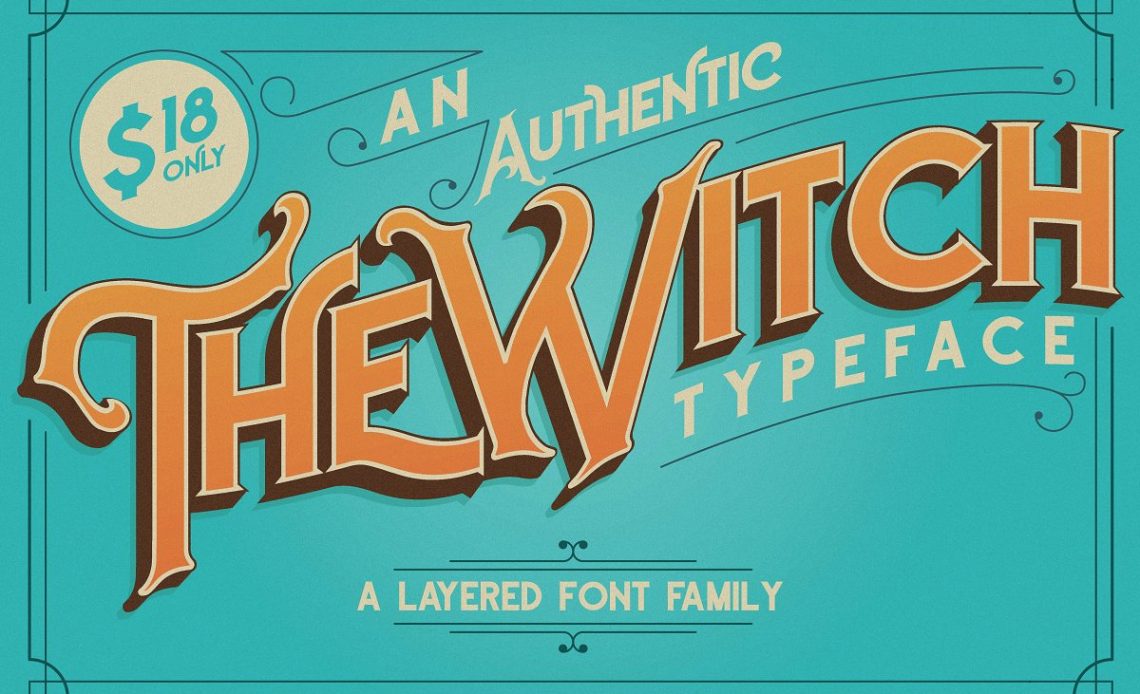
Introducing The Witch Typeface - the ultimate collection of fonts that will transport you back to the enchanting world of the late 1800s. Created by the talented minds at Paper Witch, this font family is a true masterpiece, capturing the essence of vintage charm and nostalgia.
With its four captivating styles - Regular, Outline, Gradient, and 3D Extrude - The Witch Typeface offers a versatile range of options to suit your every design need. Each style exudes its own distinct personality, allowing you to infuse your projects with a touch of magic and allure.
Immerse yourself in a world of wonder as you indulge in the mesmerizing vintage atmosphere that The Witch Typeface effortlessly conjures. Picture yourself strolling through a whimsical circus, relishing in the joy of a vibrant carnival, sipping aromatic coffee in a cozy café, or enjoying a smooth cigarette in the company of friends. This font is designed to encapsulate the essence of these experiences, transporting you to a bygone era with every letter you type.
But the magic doesn't stop there. The Witch Typeface is not limited to its layered styles; it can also be used as a standalone font, allowing you to effortlessly recreate the charm of vintage designs or add a retro flair to any project. Whether you're working on a poster, logo, menu, or website, this font will infuse your creations with a timeless elegance that is sure to captivate your audience.
So, let your creativity soar and breathe life into your designs with The Witch Typeface. Unleash the power of its emotional allure and watch as your projects come alive with an irresistible vintage charm. Download it now and embark on a journey through time, where every stroke of your keyboard is infused with the nostalgia and beauty of the late 1800s. Happy designing!